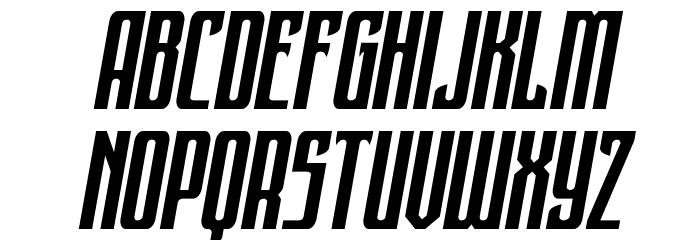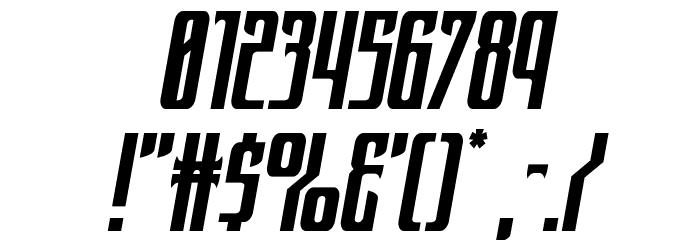
Night Traveler Italic Font
This font features a bold and dynamic italic style, characterized by its sharp angles and elongated forms. The letters are tightly spaced, creating a sense of urgency and movement. The uppercase and lowercase letters maintain a consistent slant, enhancing the italicized effect. The numbers and special characters follow the same stylistic cues, ensuring uniformity across all glyphs. This font's high contrast between thick and thin strokes adds to its striking appearance, making it ideal for attention-grabbing designs.
A bold, italic font with sharp angles and high contrast.
- Proposed Projects: Ideal for sports branding, dynamic posters, and modern advertising campaigns.
- Character Spacing: Tight